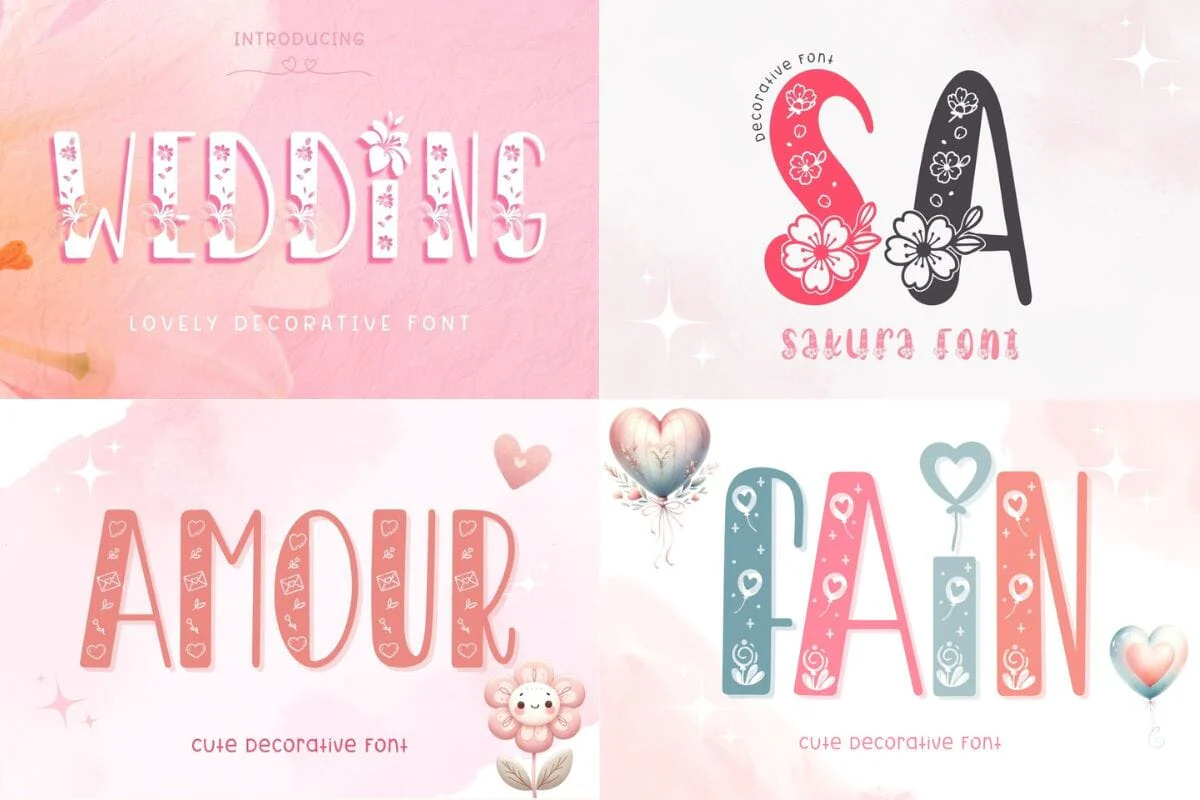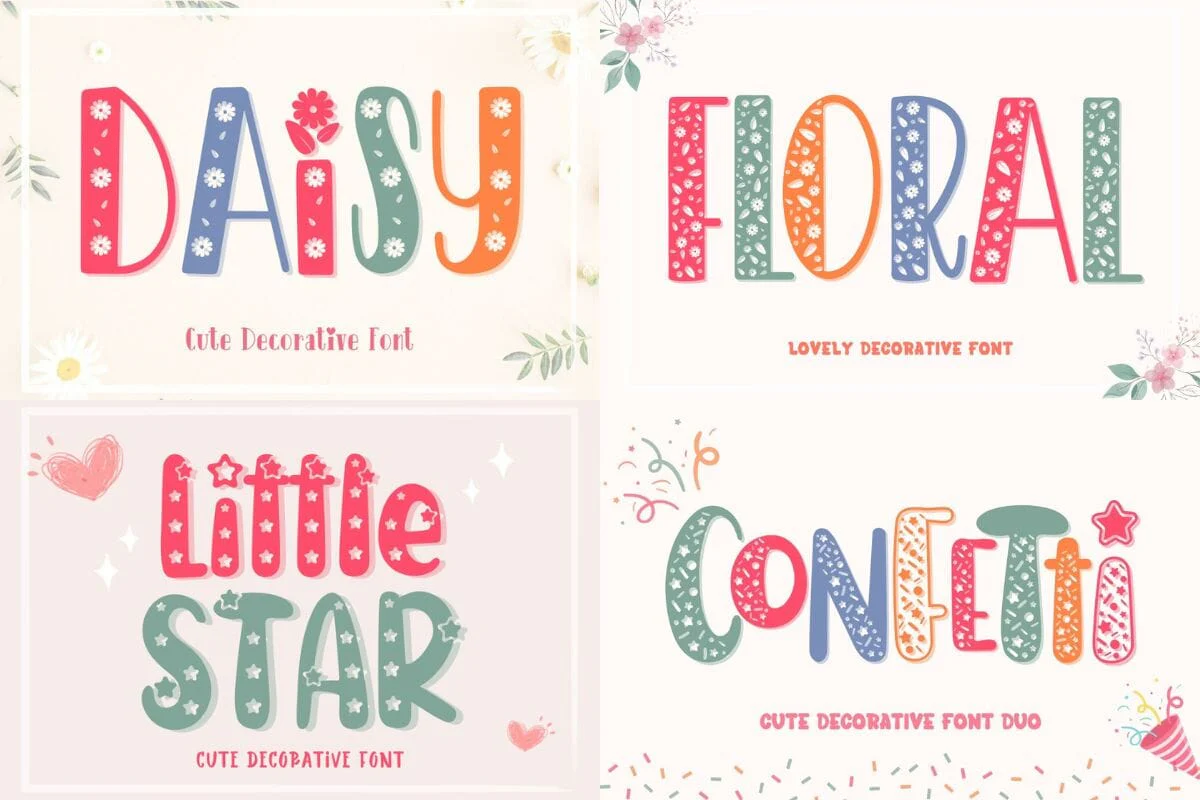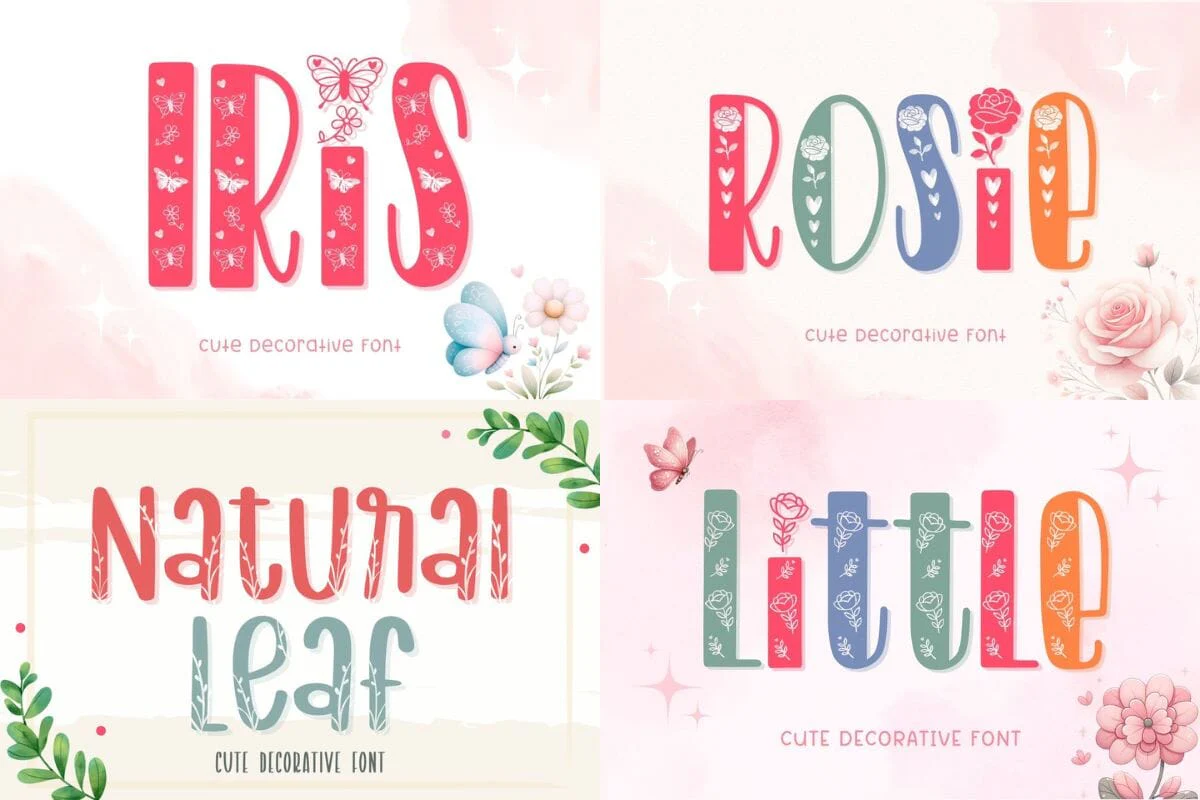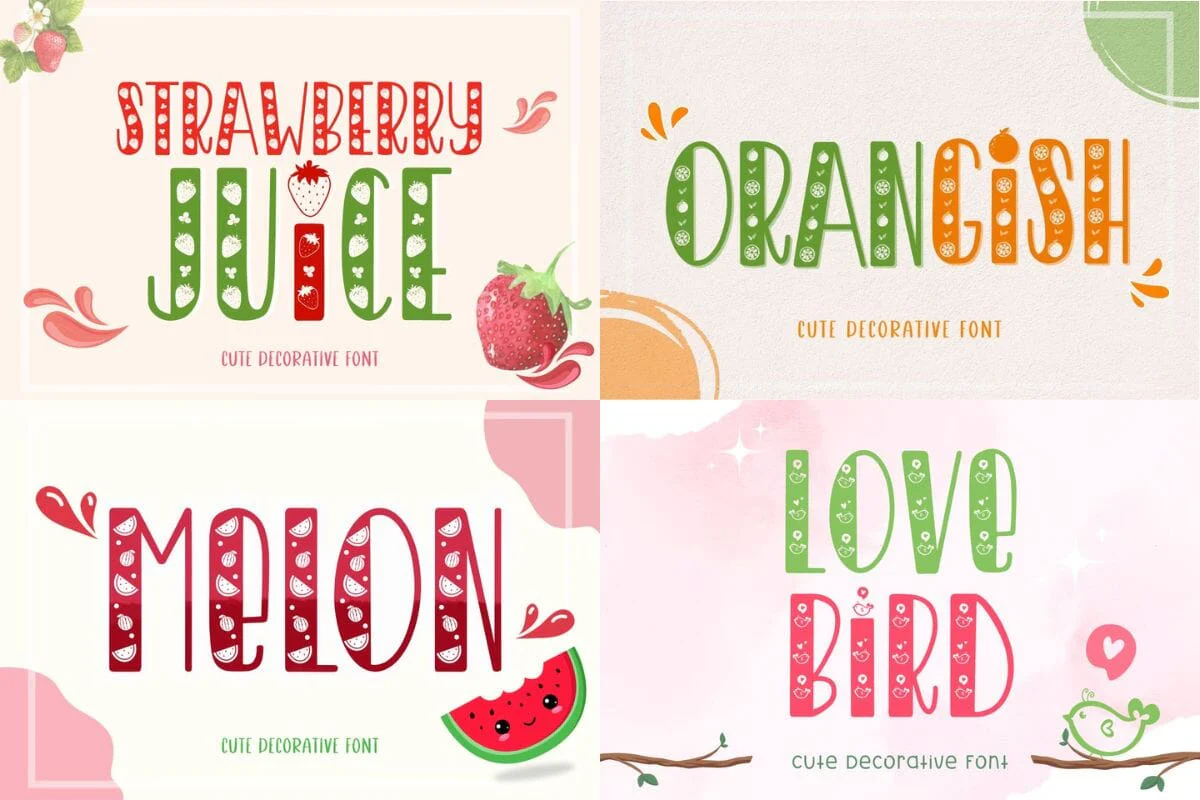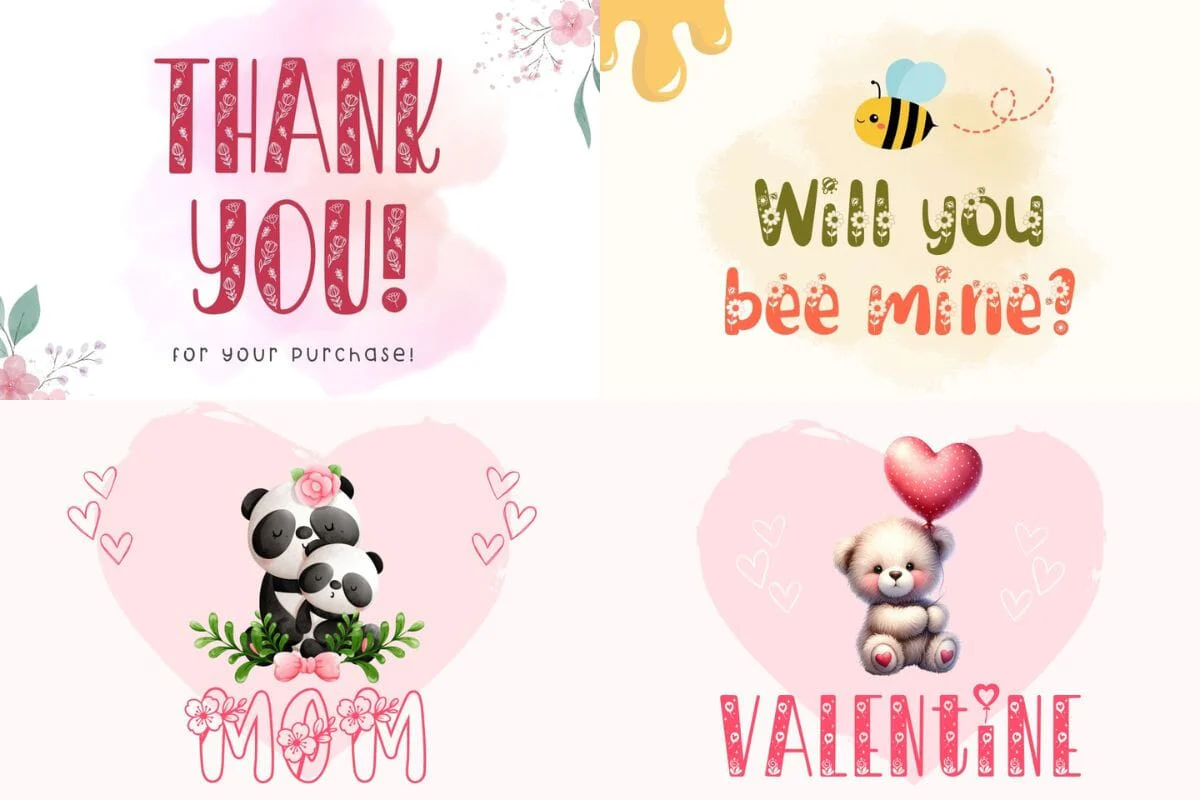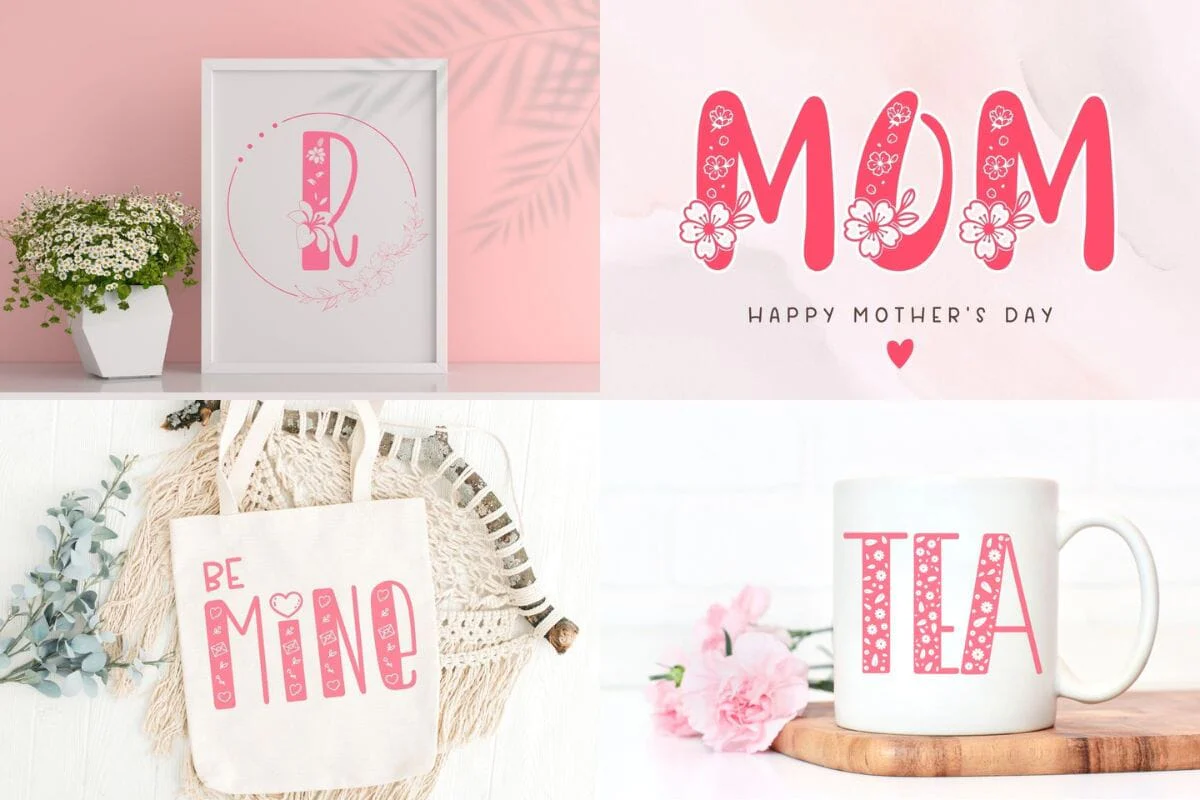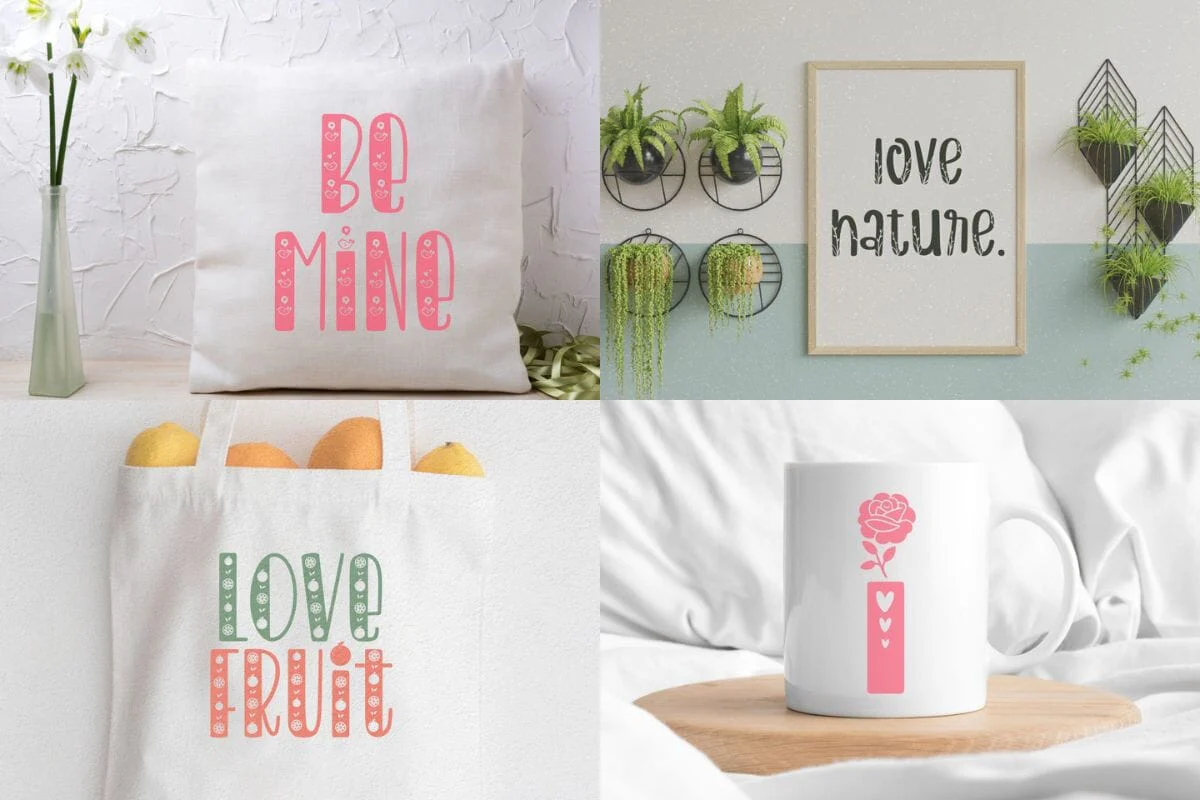
Special Deco Flower Font Bundle
Fonts included in this bundle are:
- Daisy
- Natural Leaf
- Confetti
- Summer Flower
- Kei Zakura
- Flower Bees
- Iris
- Little Star
- Floral
- Spring Flower
- Bloomimg
- Sakura
- Amour
- Rosie
- Melon
- Lovebird
- Strawberry Juice
- Wedding
- Fain
- Little
- Orangish